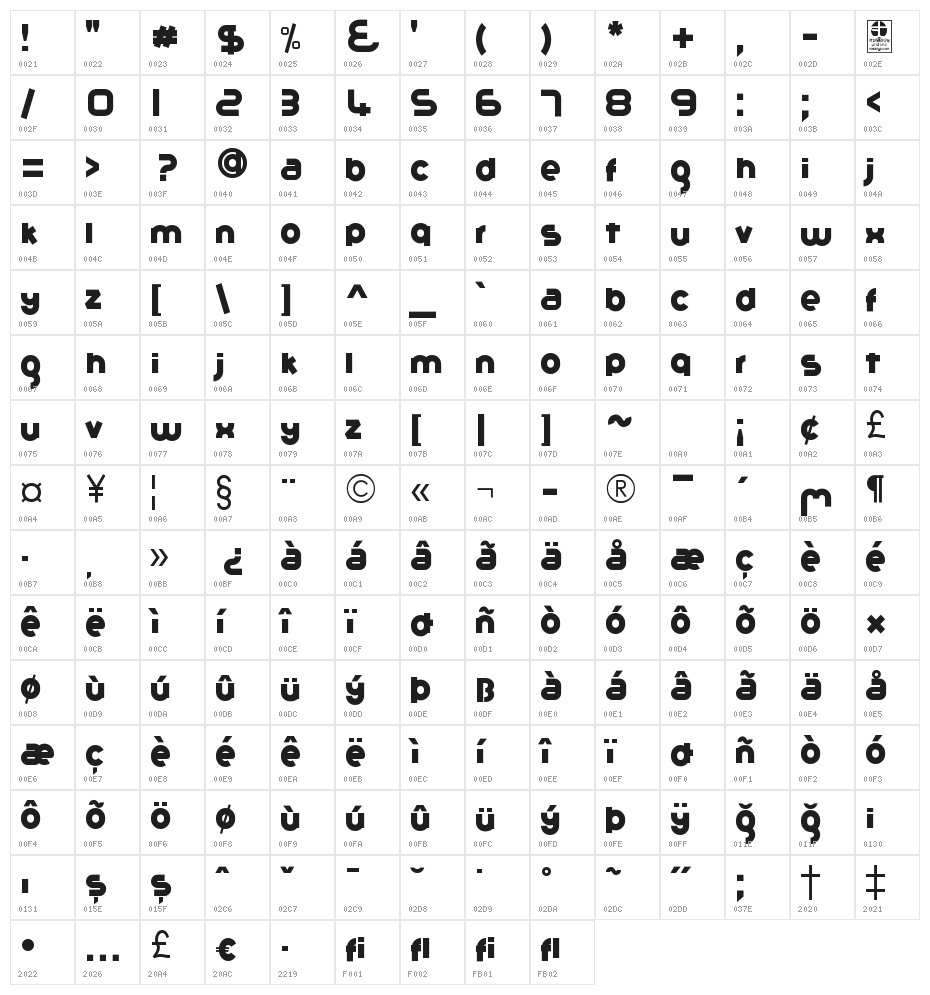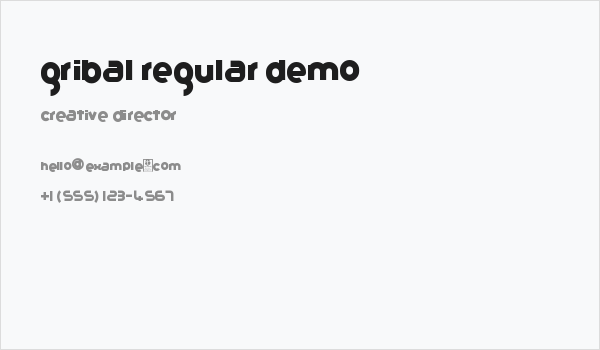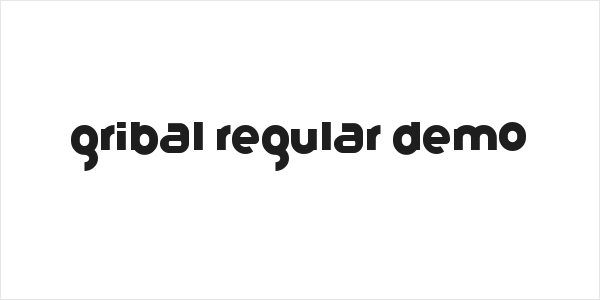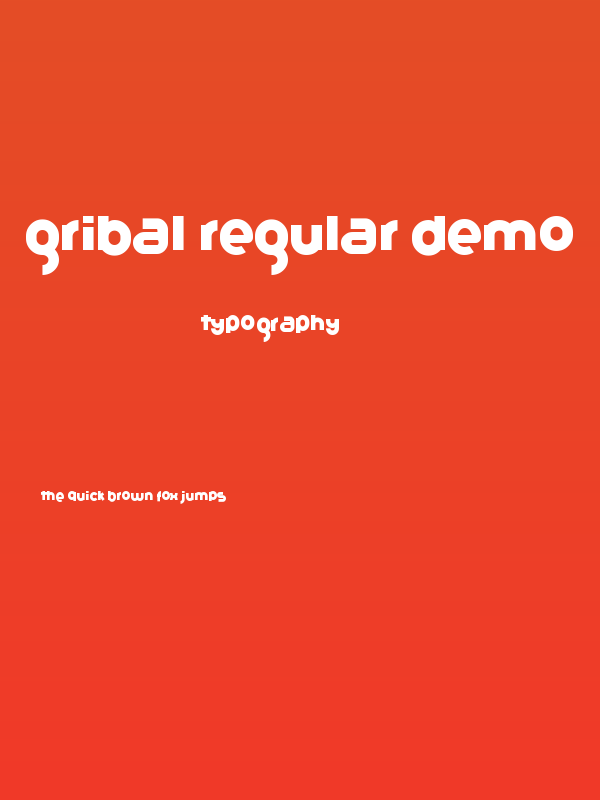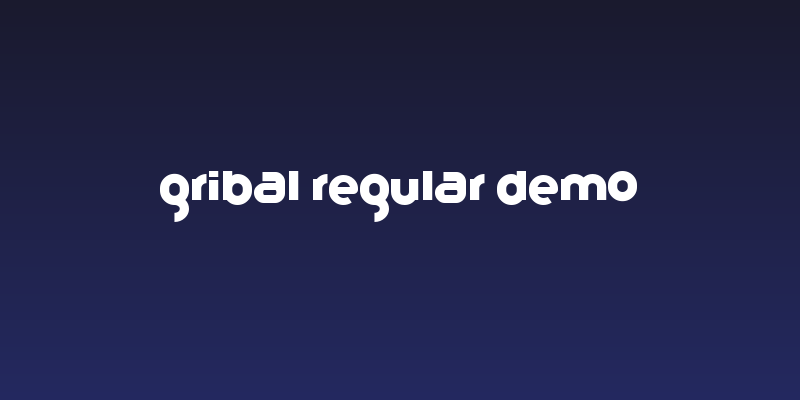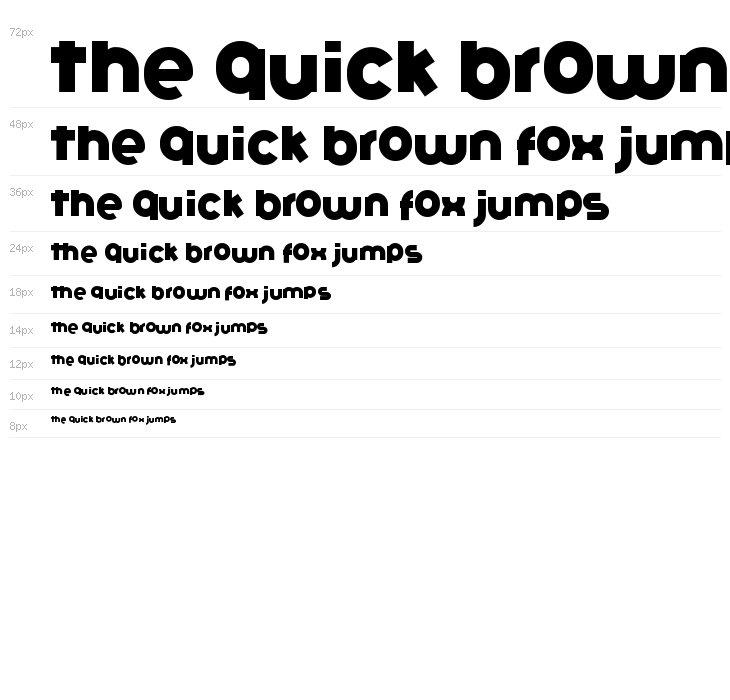
Gribal Regular Demo Font
Gribal Regular Demo Description
This font features a bold and modern design with a geometric and rounded appearance. The characters are uniformly thick, contributing to a strong visual impact. The uppercase and lowercase letters share a consistent style, with smooth curves and clean lines. The numerals are distinct and maintain the same boldness, ensuring readability. Special characters are designed to match the overall aesthetic, providing a cohesive look. The font's style is suitable for contemporary designs, offering a striking presence that can enhance various creative projects.
| Proposed Projects | Ideal for branding, posters, headlines, and digital media where a strong, modern presence is desired. |